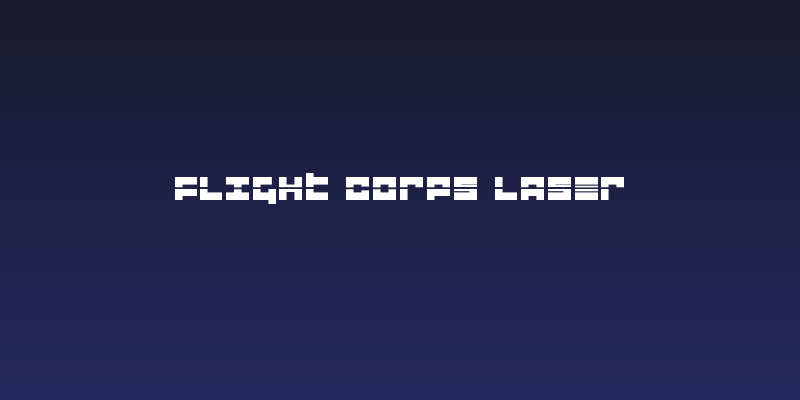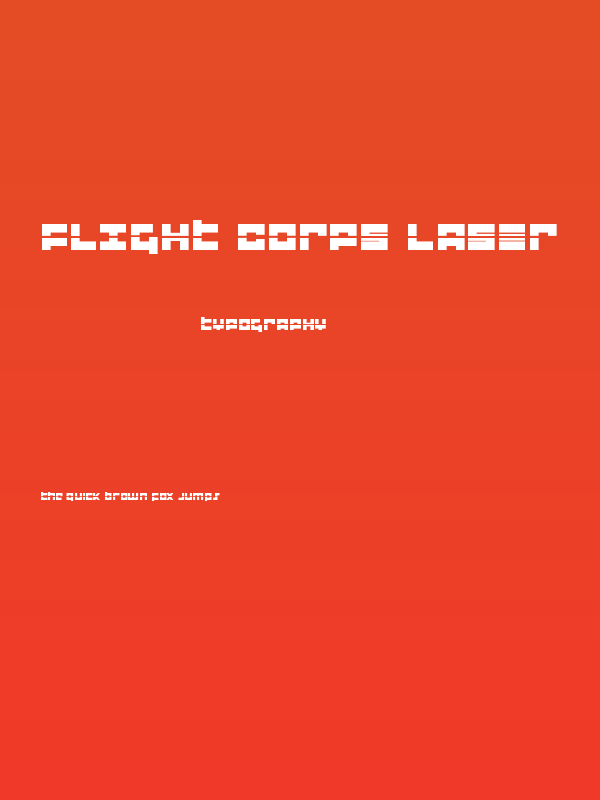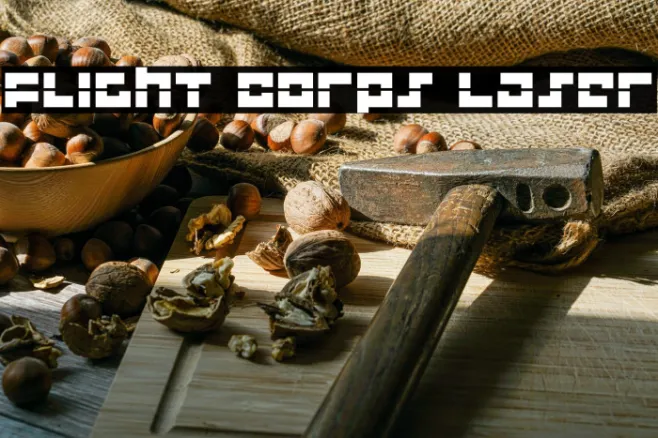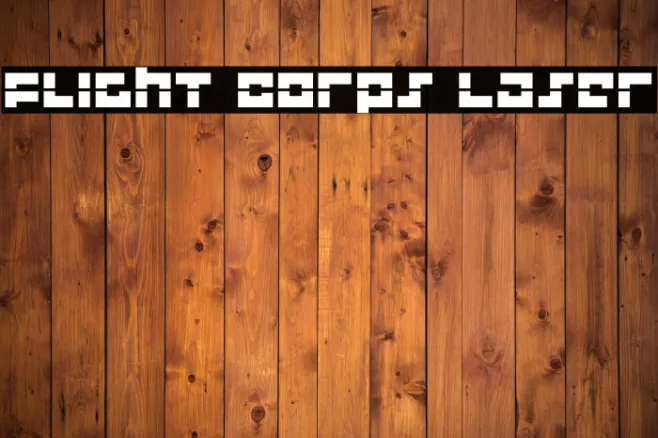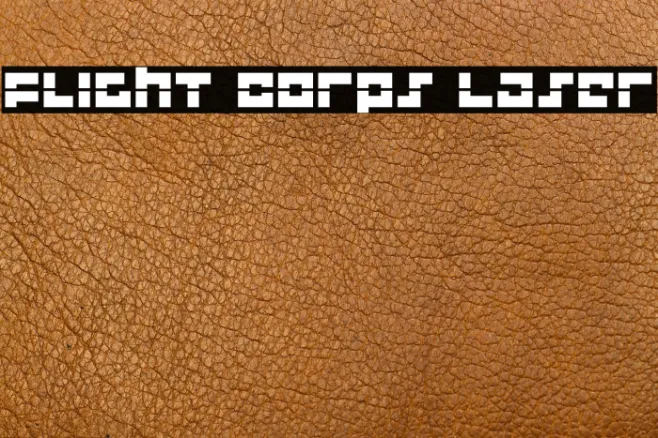
Flight Corps Laser Font
Flight Corps Laser Description
This font features a bold, futuristic design with a strong geometric structure. The characters are constructed with solid, block-like shapes, giving them a robust and industrial feel. The uppercase and lowercase letters maintain a consistent style, with angular cuts and sharp edges that enhance the modern aesthetic. The numerals and special characters follow the same design principles, ensuring uniformity across all glyphs. This font is highly legible at larger sizes, making it ideal for impactful headlines and attention-grabbing designs. Its unique style is reminiscent of digital or sci-fi themes, suitable for projects that require a contemporary and edgy look.
| Overall Style | Futuristic, Industrial |
| Proposed Projects | Ideal for sci-fi themed posters, video game titles, tech branding, and futuristic event invitations. |